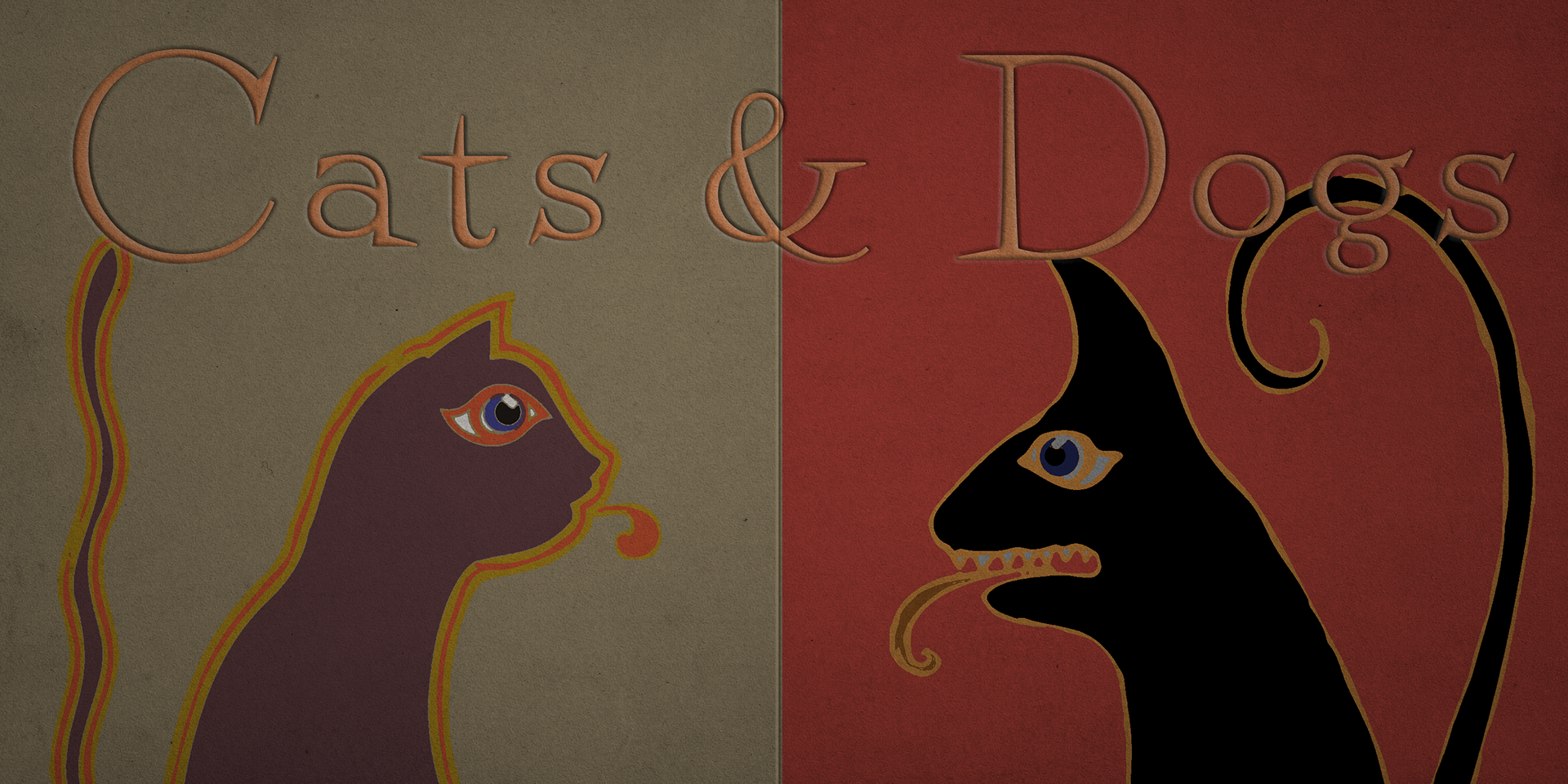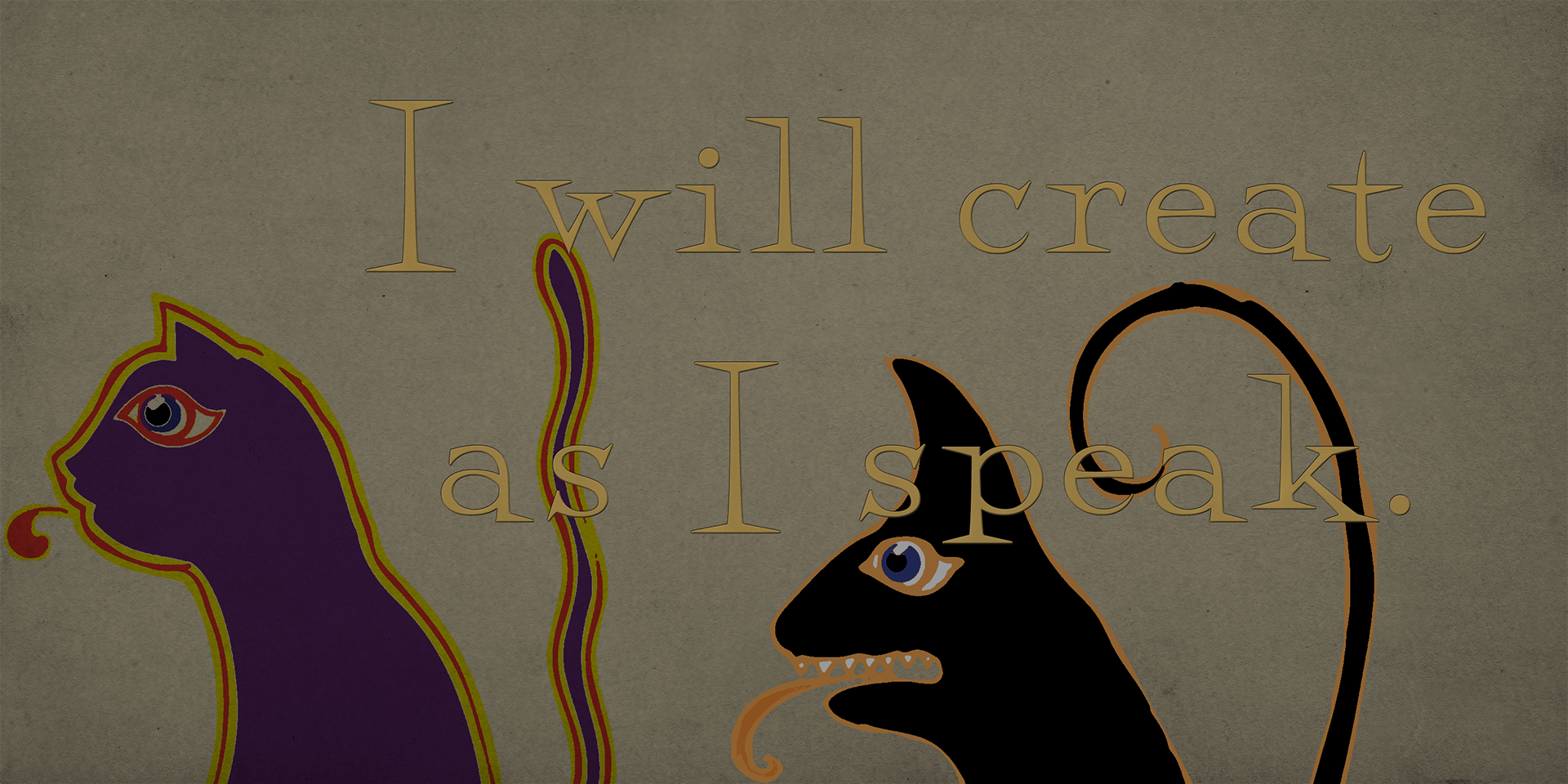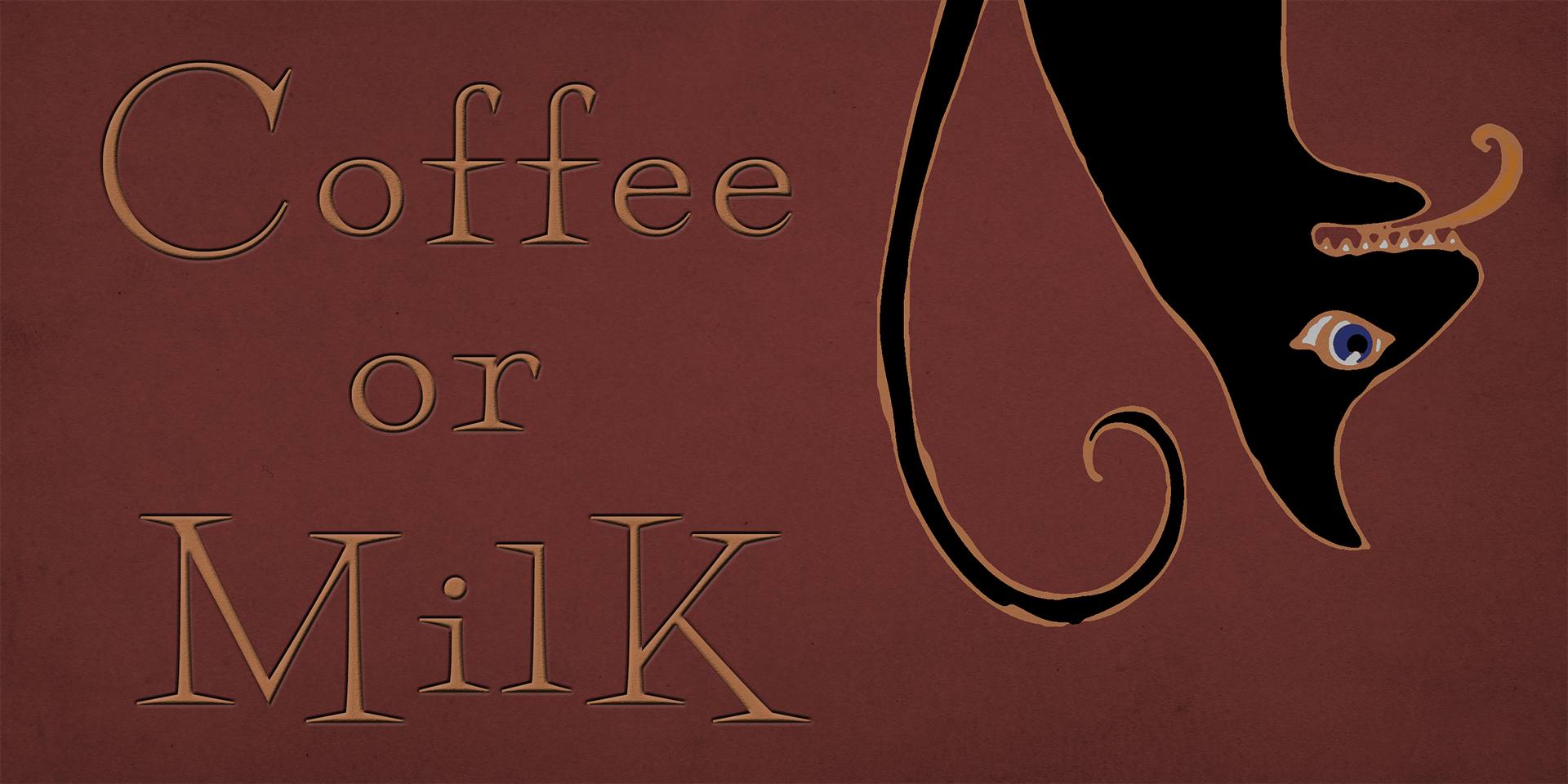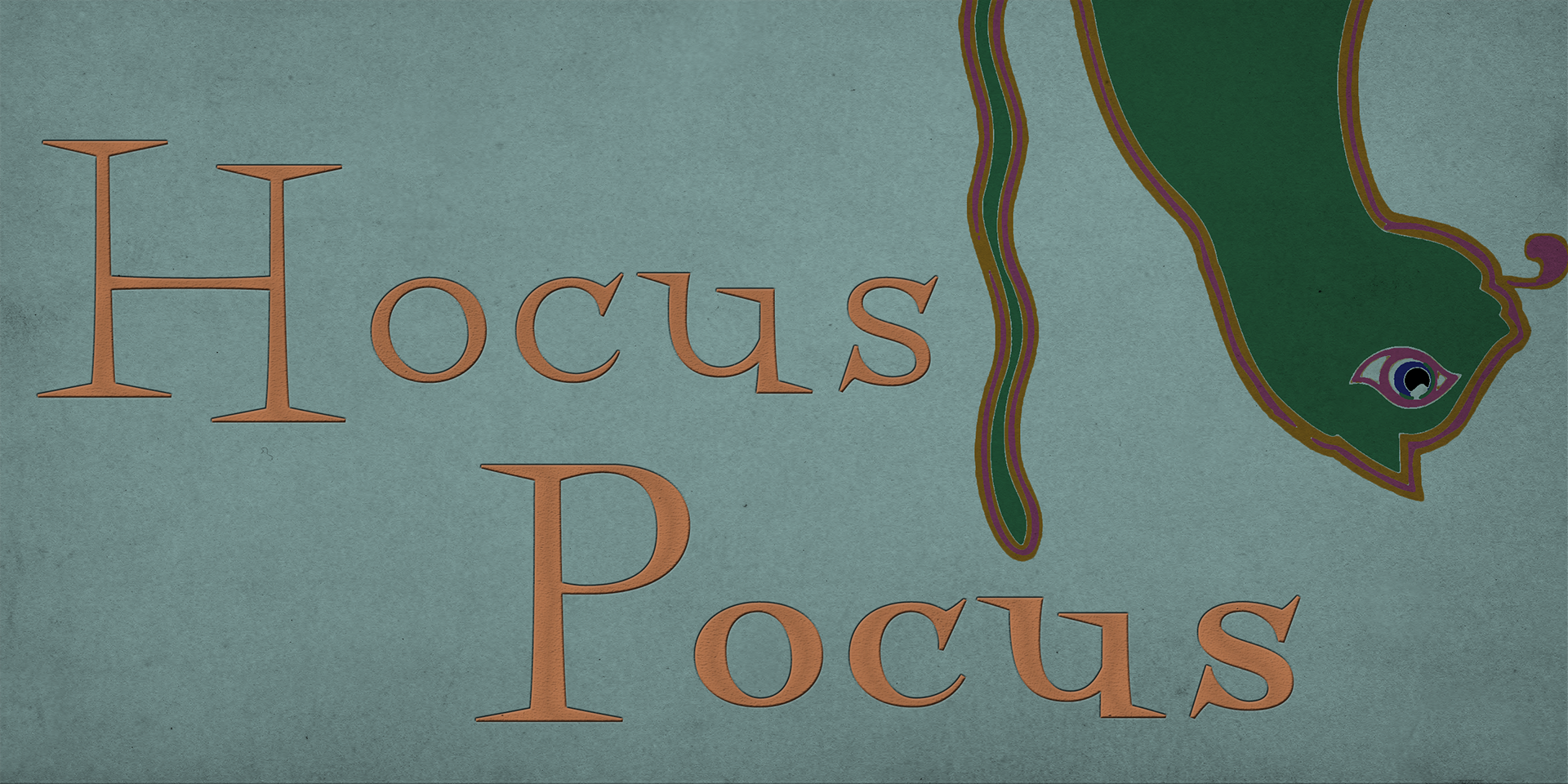
Perfect Magic
A jazzy serif typeface inspired by swing-era jazz album covers from the early 20th century.
Its playful rhythm and vintage charm make it a great fit for children’s picture books, packaging, and any design that needs a touch of nostalgic flair.